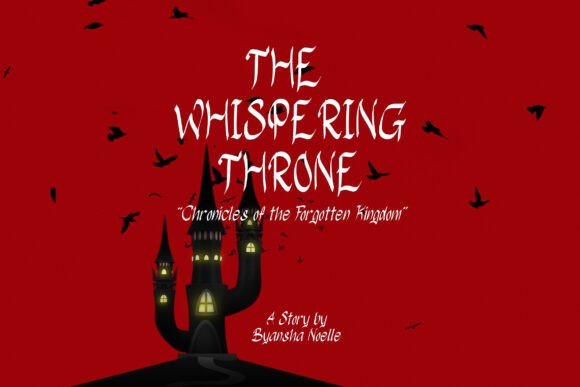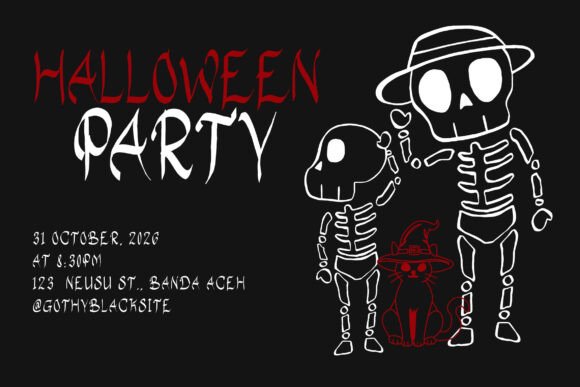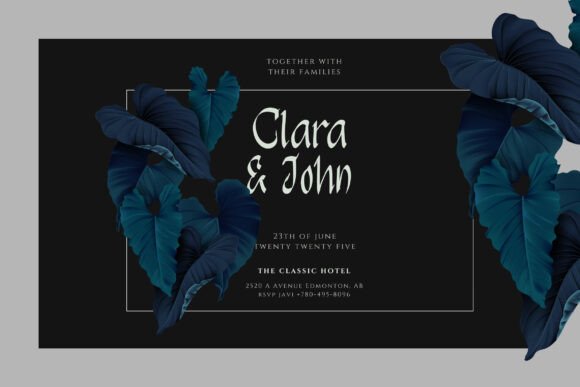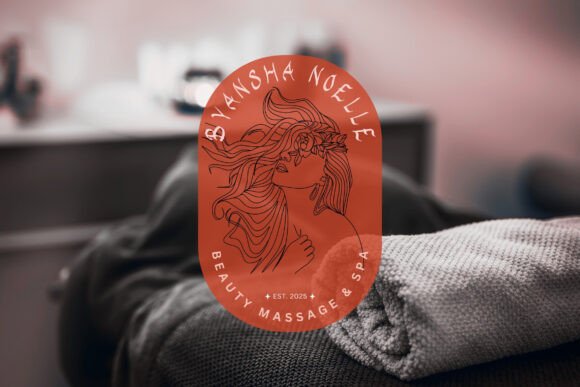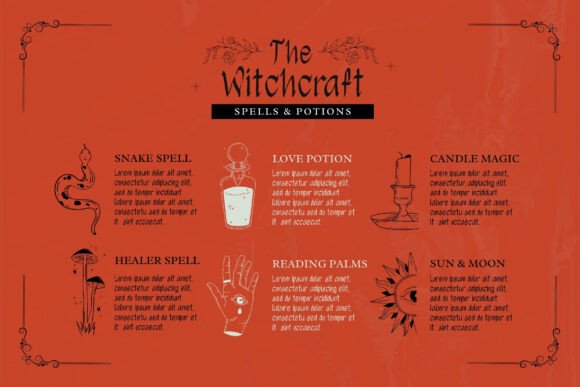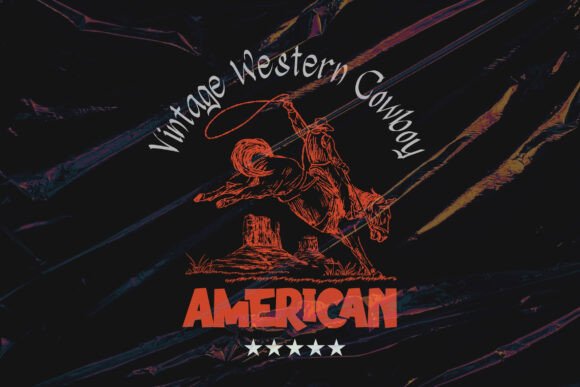
Gothy Black Font – Free Download
Introduction to Gothy Black Font
Gothy Black is a stylish blend of tradition and modernity.
Inspired by classic blackletter fonts, it features a sleek and simplified design, making it more readable while maintaining its bold, gothic character The sharp yet clean lines give it a strong and elegant look, perfect for those who want a touch of vintage charm with a modern twist.